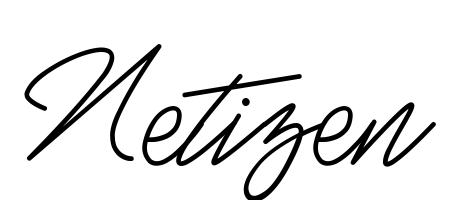
Netizen
Netizen, a script font, exudes elegance with its flowing, cursive letters. The 'N' gracefully curves, connecting smoothly to the rest. The 'e' is delicate, while the 'z' has a unique, slightly extended tail. Overall, it conveys a sense of sophistication and effortless style, perfect for titles or branding with a feminine touch.